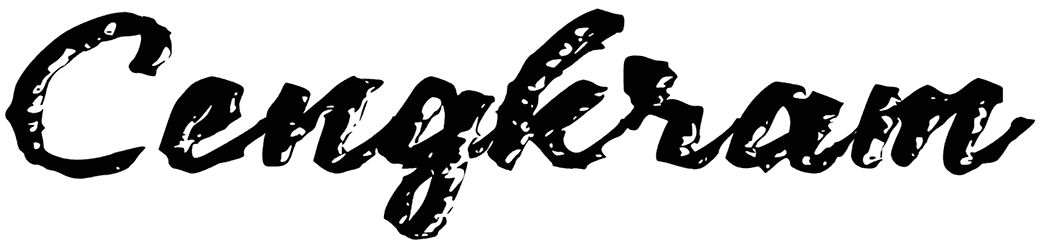
c Cengkram Font
If you want to add a fresh breath and a captivating style to your projects, you will definitely require a marvelous dirty font similar to the c Cengkram that comes with a unique form and looks really tempting.
This brush font can be your reliable assistant in the realm of designing social media posts, product packaging, stickers, video game brochures, or digital banners. Needless to say that it carries a vibe of vitality, eeriness, jauntiness, or momentum.